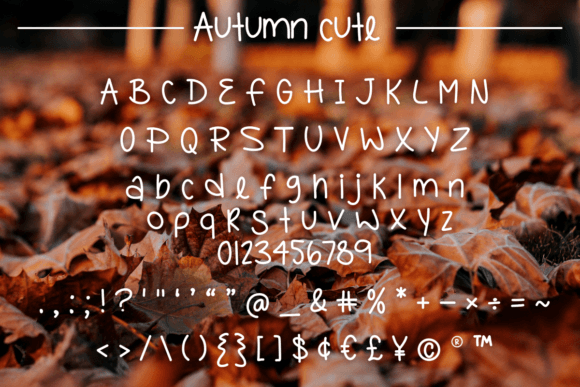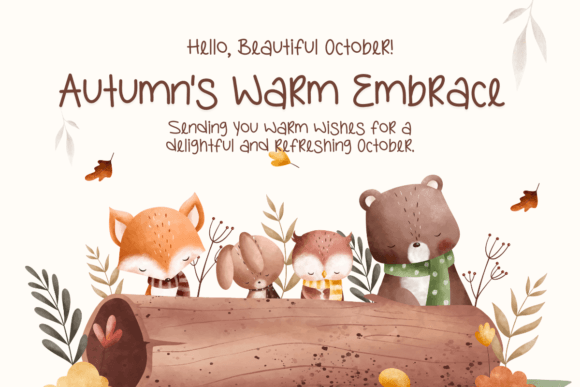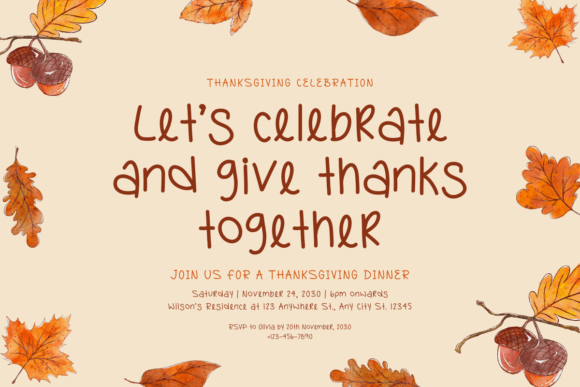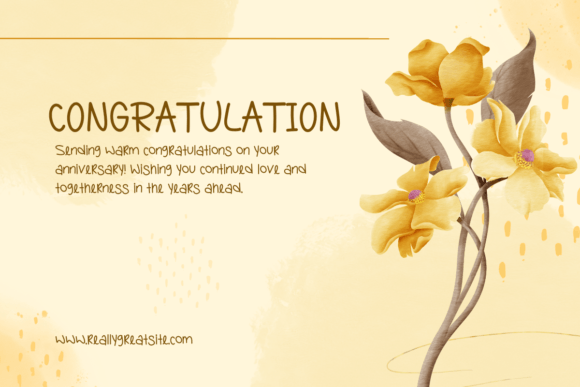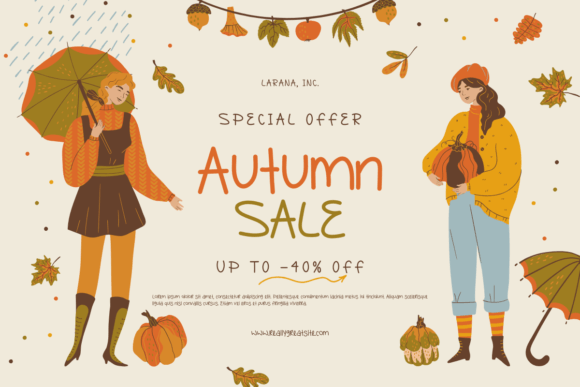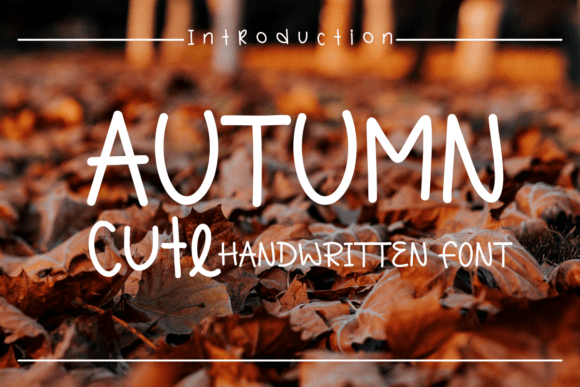
The Cozy Charm of Autumn Cute Font
As a designer, I’ve had my fair share of font frustrations. I recall working on a project for a client who wanted a warm, inviting aesthetic for their autumn-themed branding. I spent hours scouring the internet for the perfect handwritten font, only to come up empty-handed. That was until I stumbled upon Autumn Cute Font. It was love at first sight! ✨
- 💕 The whimsical, handwritten feel of Autumn Cute Font is perfect for creating cozy, autumn-inspired designs.
- ✅ It’s incredibly versatile and can be used for a wide range of projects, from notes and diaries to banners and social media posts.
- 🎉 The font comes with a range of OpenType features, glyphs, and stylistic alternates, making it easy to customize and add personality to your designs.
While Autumn Cute Font is an amazing addition to any design project, there are a few things to keep in mind: 🤔
- ⚠️ Some of the glyphs and special characters can be a bit finicky, requiring a bit of experimentation to get just right.
- ⚠️ The font may not be suitable for very large or very small text sizes, as some of the details can get lost.
The Story Behind Autumn Cute Font
Autumn Cute Font was designed with the intention of capturing the warmth and coziness of the autumn season. The designer, inspired by the changing leaves and crisp air, created a font that’s perfect for adding a touch of whimsy to any design project.
Q: Is Autumn Cute Font suitable for large text sizes?
A: While Autumn Cute Font can be used for large text sizes, some of the details may get lost. It’s best suited for body text or smaller headlines.